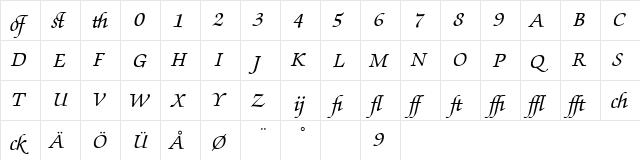
Zapf Chancery Profi Medium Italic
Design Context for Zapf Chancery Profi Typeface
Zapf Chancery Profi is a composed and adaptable typeface that performs quietly and consistently across a wide range of design contexts. Its italic angle brings a sense of urgency and motion to the letterforms.
Pro Tip: Use Zapf Chancery Profi for emphasis, pull quotes, and subheadings where its slanted energy can add rhythm to the layout.